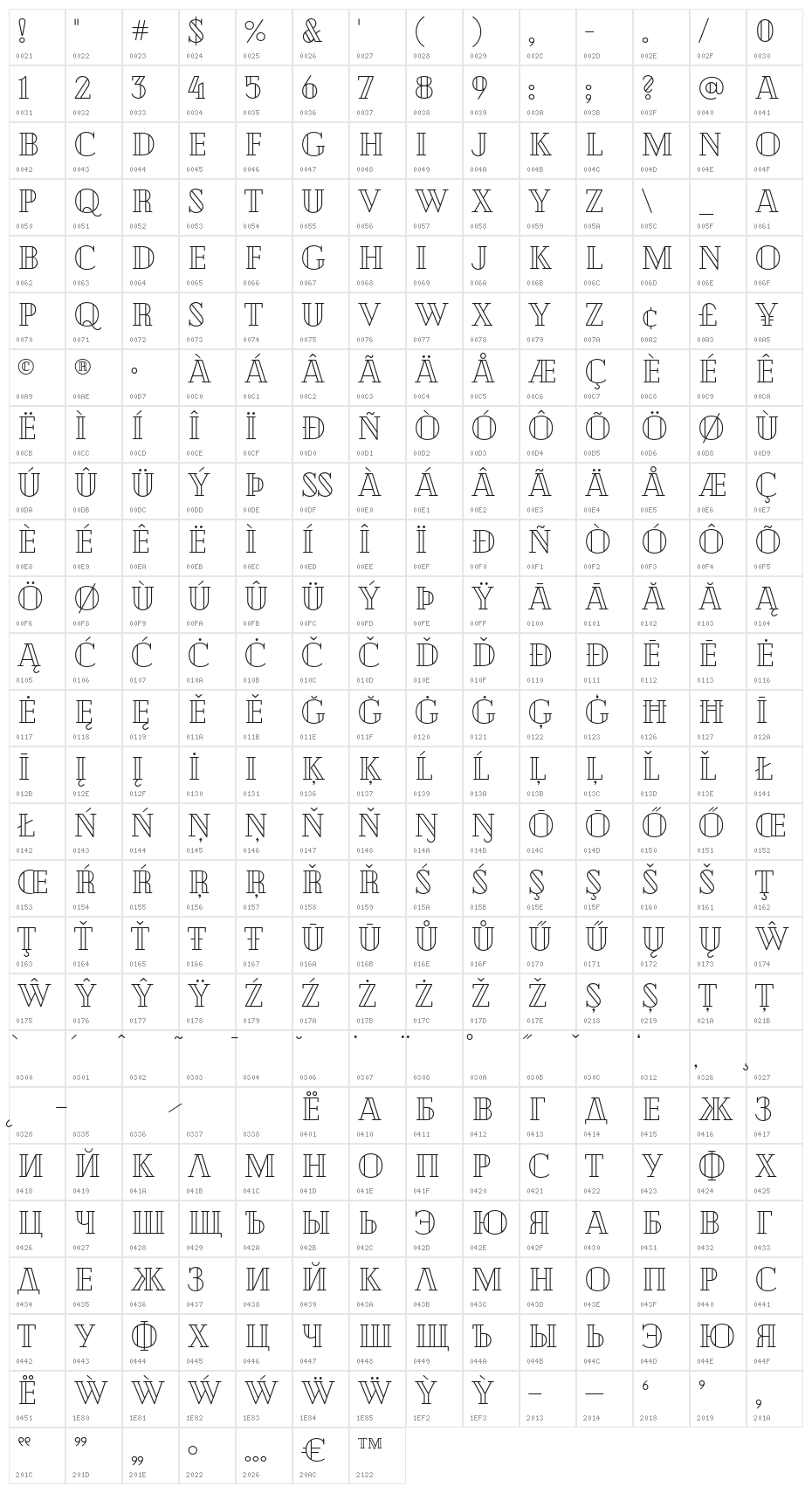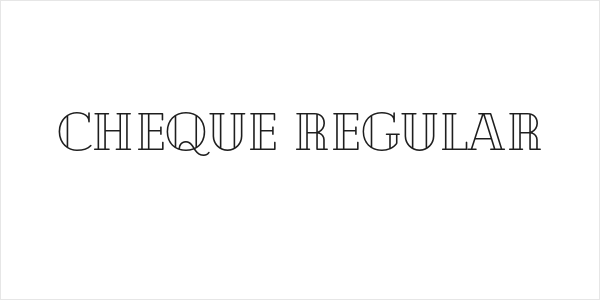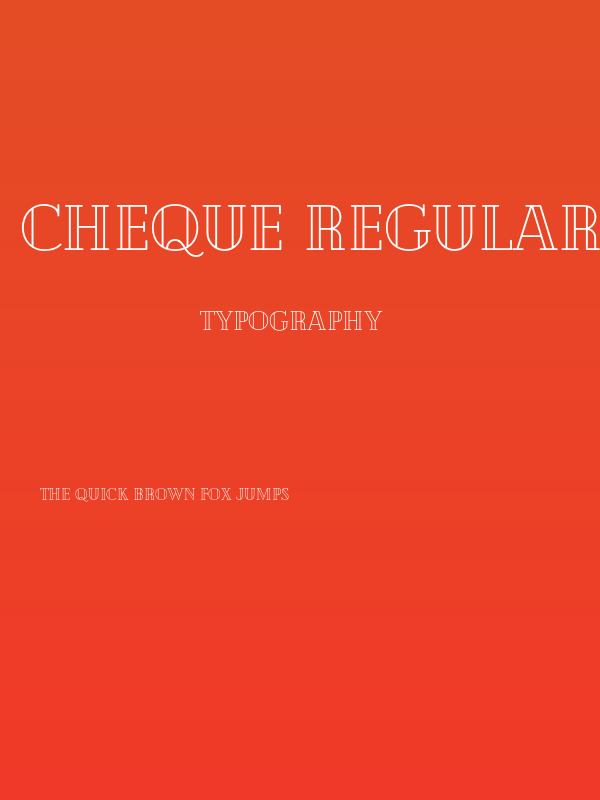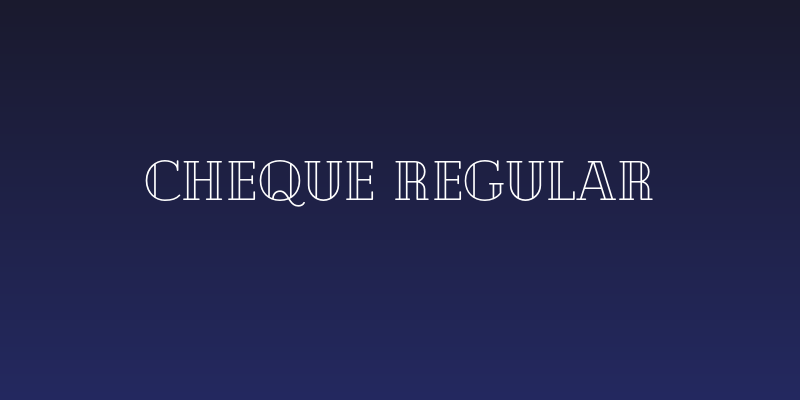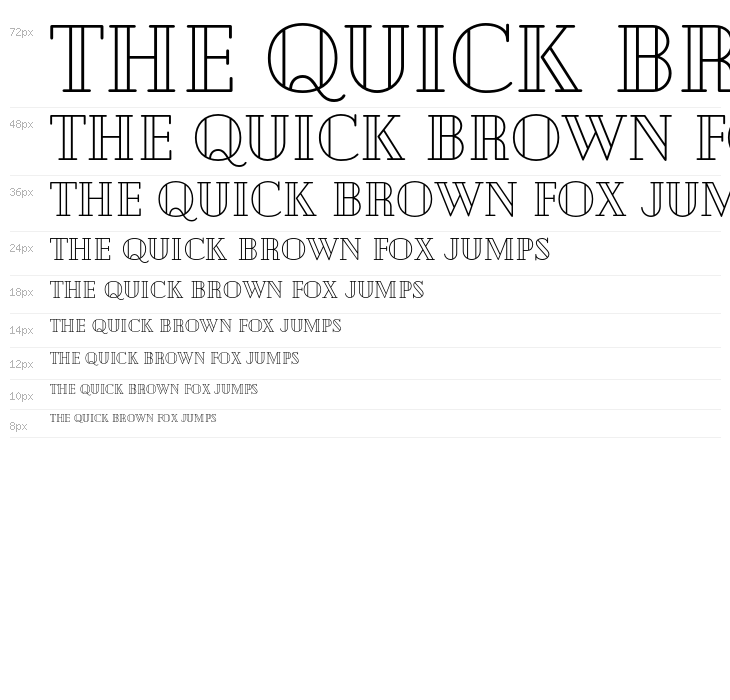
Cheque Regular Font
Cheque Regular Description
This font features a unique blend of modern and classic elements, characterized by its distinct vertical lines that bisect each character. The uppercase and lowercase letters maintain a consistent style, with sharp, clean edges and a geometric influence. Numbers are bold and prominent, matching the overall aesthetic of the alphabet. Special characters are designed with the same attention to detail, ensuring a cohesive look across all glyphs. The font's structure is both elegant and striking, making it suitable for a variety of design applications.
Overall StyleModern, Geometric
Use CaseHeadlines, Logos, Branding
Proposed ProjectsIdeal for branding, editorial design, and luxury product packaging.